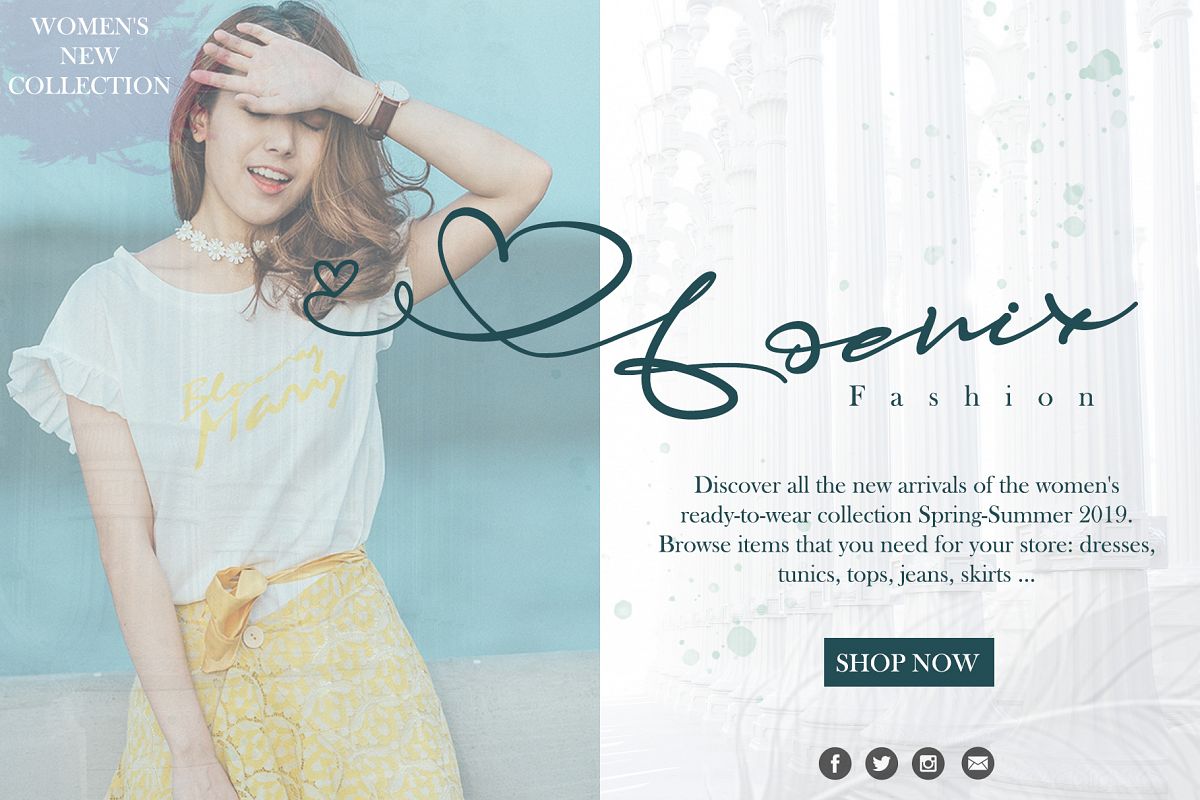
Yolanda Love Script
Yolanda is a stylish
script font that features a varying baseline, smooth line, modern and with a
depth love. For those of you who are need a touch of love and modernity for
your designs or branding, it can be used for various purposes such as headings,
wedding, invitation, signature, logos, branding, t-shirt, letterhead, signage,
lable, news, posters, badges etc.
A wide range of
swashes (a-z),  alternates (A-Z), and ligature  are included so that
you can give your logo or name a custom, hand-calligraphy look.